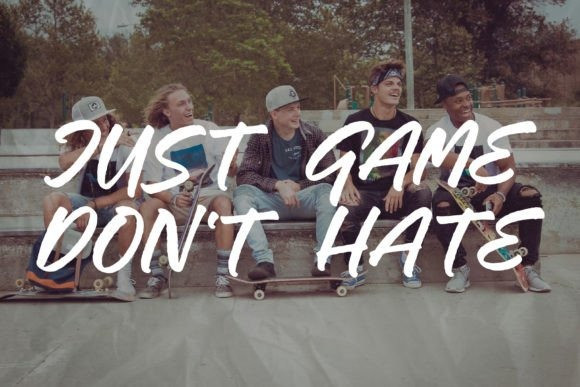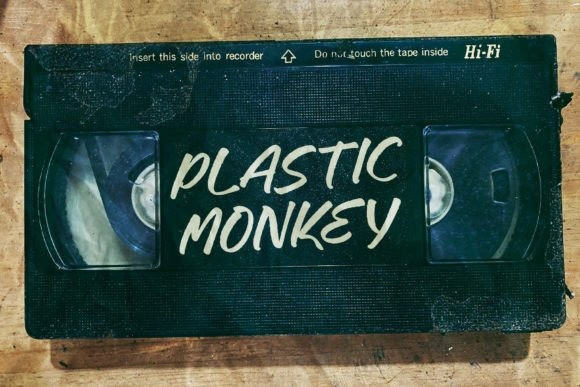
Geraldy Font
Geraldy – Handbrush Handwritten font suitable for any projects such as logos, branding projects, homeware designs, product packaging, mugs, quotes, posters, shopping bags, t-shirts, book covers, name cards, invitation cards, greeting cards, label, photography, watermark, special events, and all your other lovely projects that need a beautiful script taste.